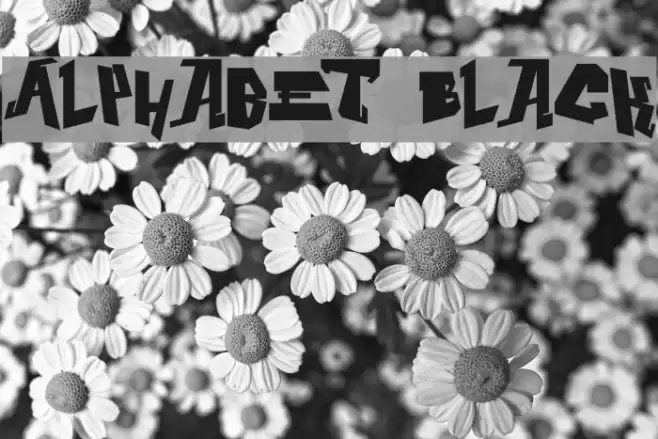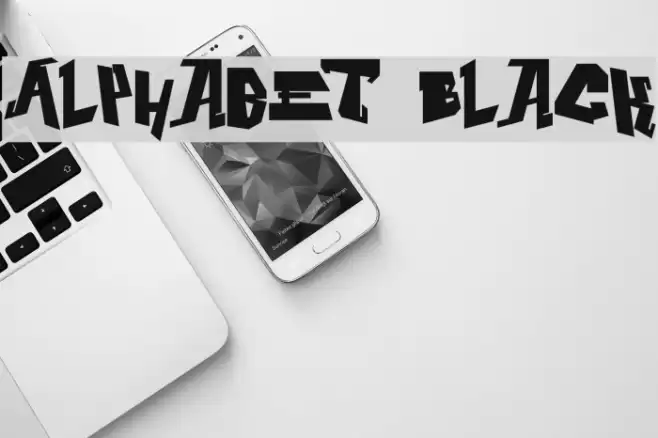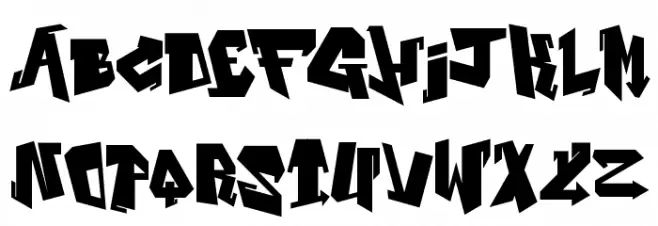
Alphabet Black Font
Alphabet Black Description
This font features a bold and edgy design with sharp, angular lines and a graffiti-like aesthetic. The characters are heavily stylized, with exaggerated points and a sense of movement that gives them a dynamic, almost aggressive appearance. The uppercase letters are particularly striking, with each character appearing as if it has been carved or chiseled, adding to the font's rugged and urban feel. The font's unique style makes it stand out, capturing attention with its bold presence and artistic flair.
A bold, angular font with a graffiti-inspired, dynamic style from Uncategorized fonts.
- Proposed Projects: Ideal for street art designs, urban-themed posters, music album covers, and edgy branding projects.
- Overall Style: Modern, Urban